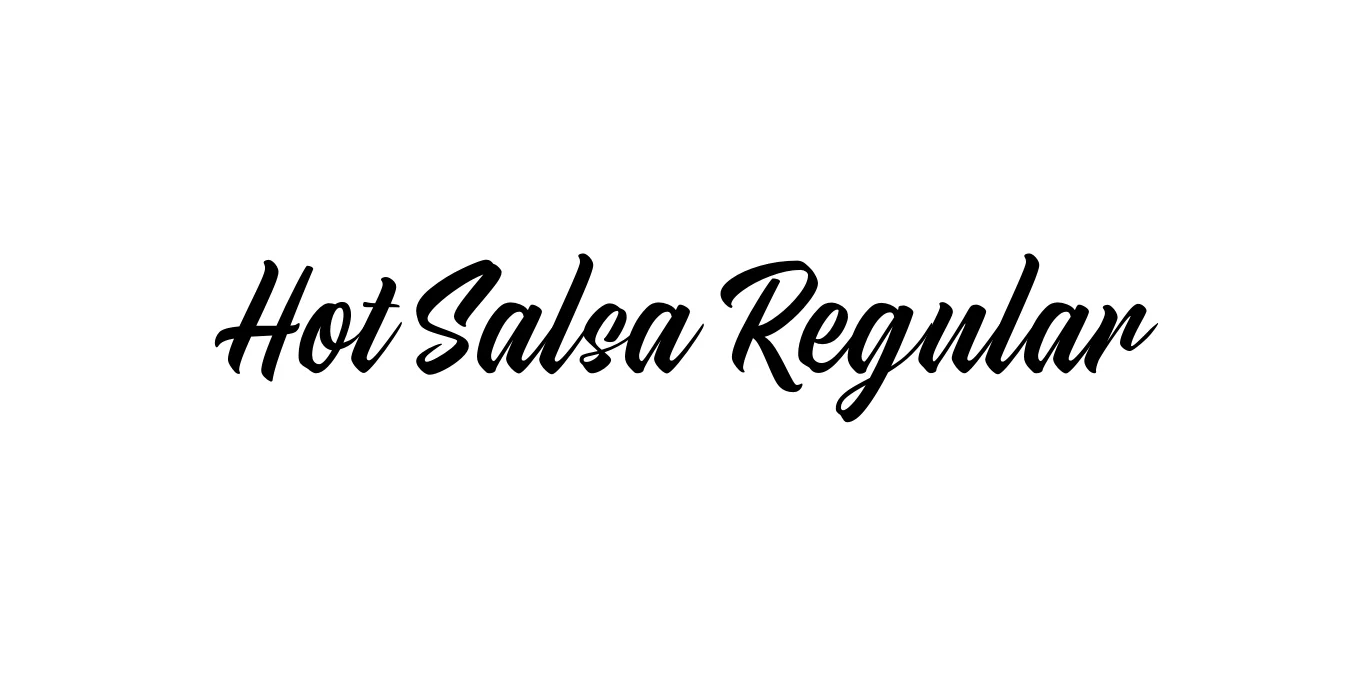
Hot Salsa Regular
Designed by Artimasa Studio
Hot Salsa Regular is a vibrant and energetic brush script font designed to capture a sense of movement and spontaneity. Created by the talented team at Artimasa Studio, this typeface features fluid strokes and a casual, hand-drawn aesthetic that makes it perfect for creative projects needing a personal touch and a warm, friendly atmosphere.
The font is particularly effective in branding and advertising where an approachable vibe is required. With its natural flow and bold presence, Hot Salsa excels in logo design, food packaging, and social media graphics, offering a versatile tool for designers looking to add a layer of personality and handcrafted charm to their digital or print media.
Hot Salsa Regular Best Uses
Ideal for creating unique and memorable logos with a hand-drawn feel.
Perfect for organic or artisanal food labels, restaurant menus, and product tags.
Great for eye-catching quotes, Instagram stories, and energetic promotional graphics.